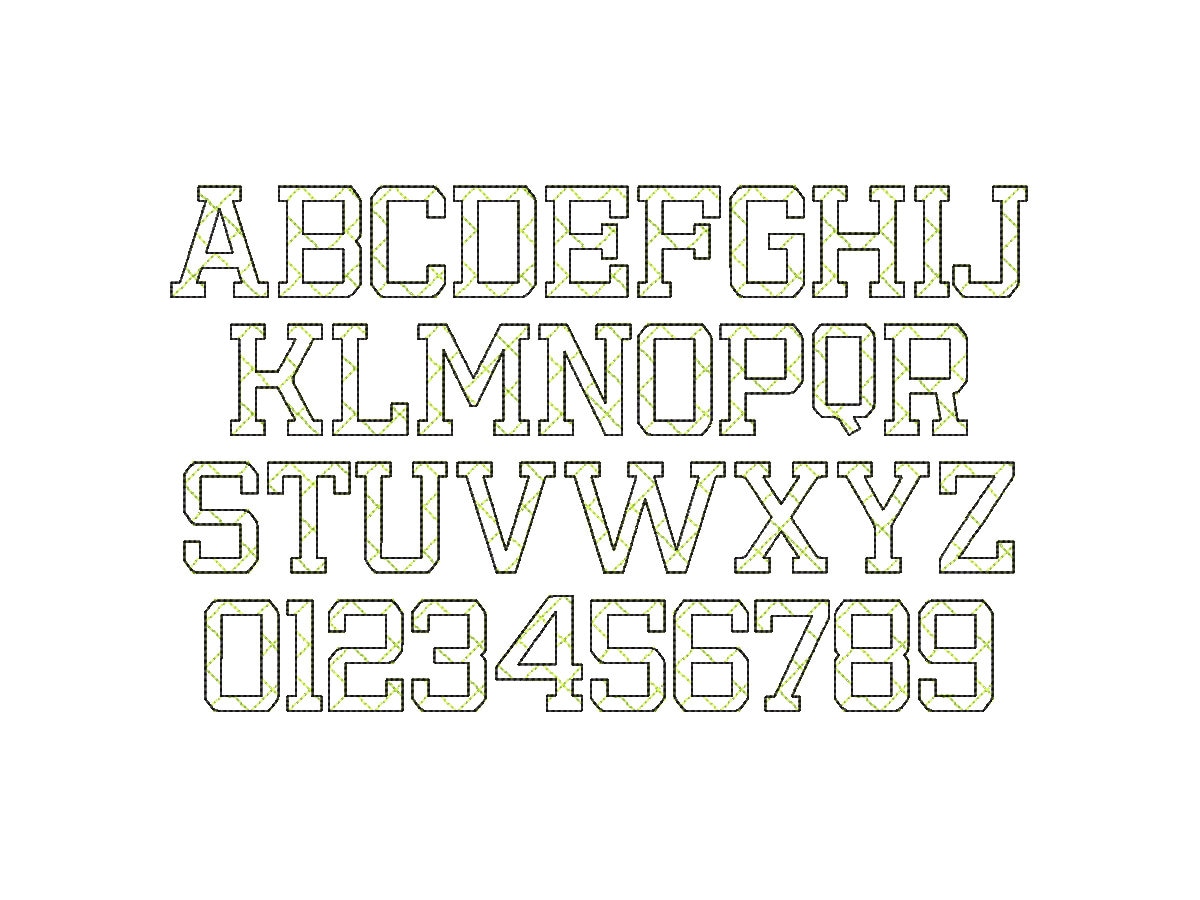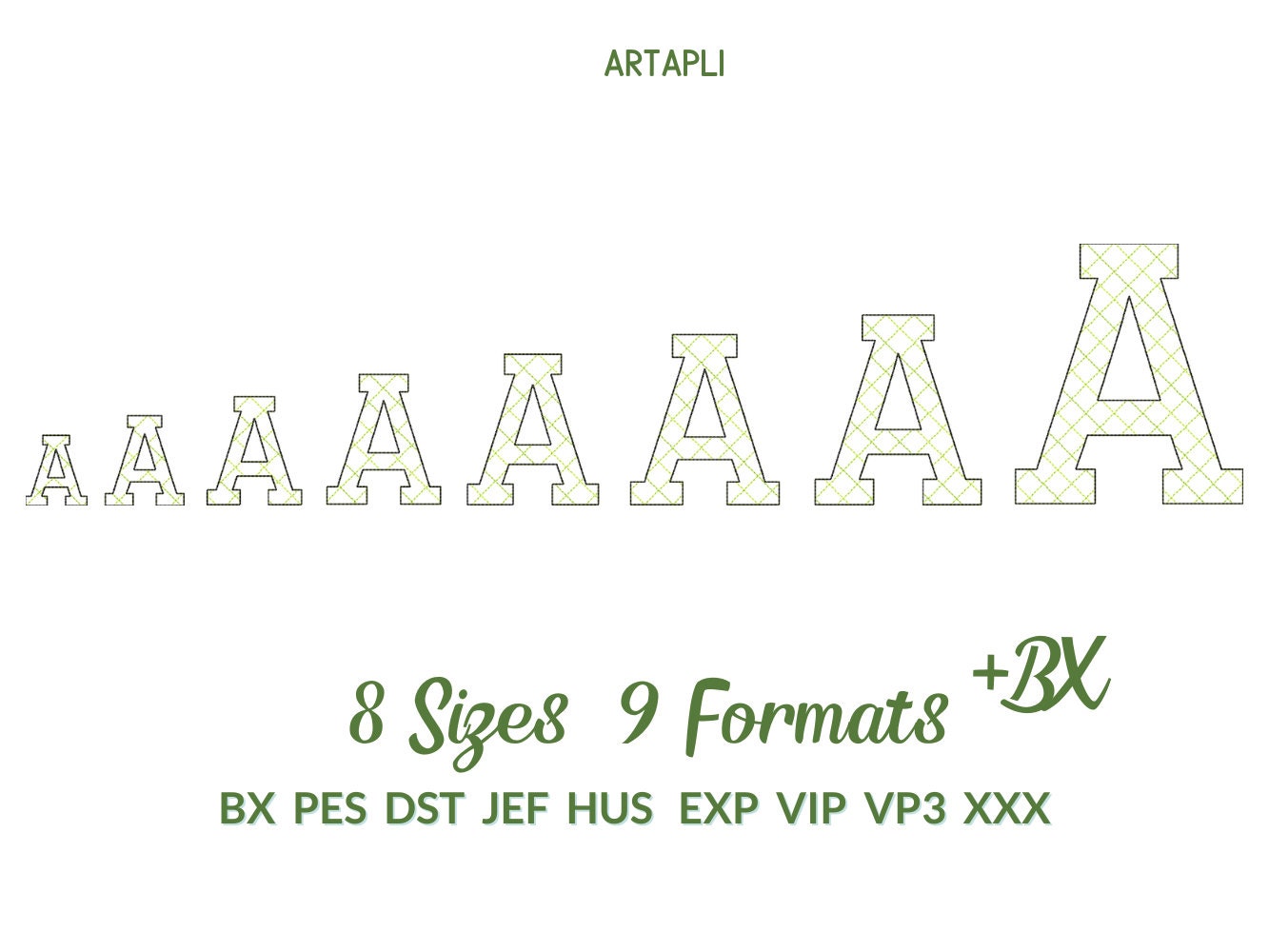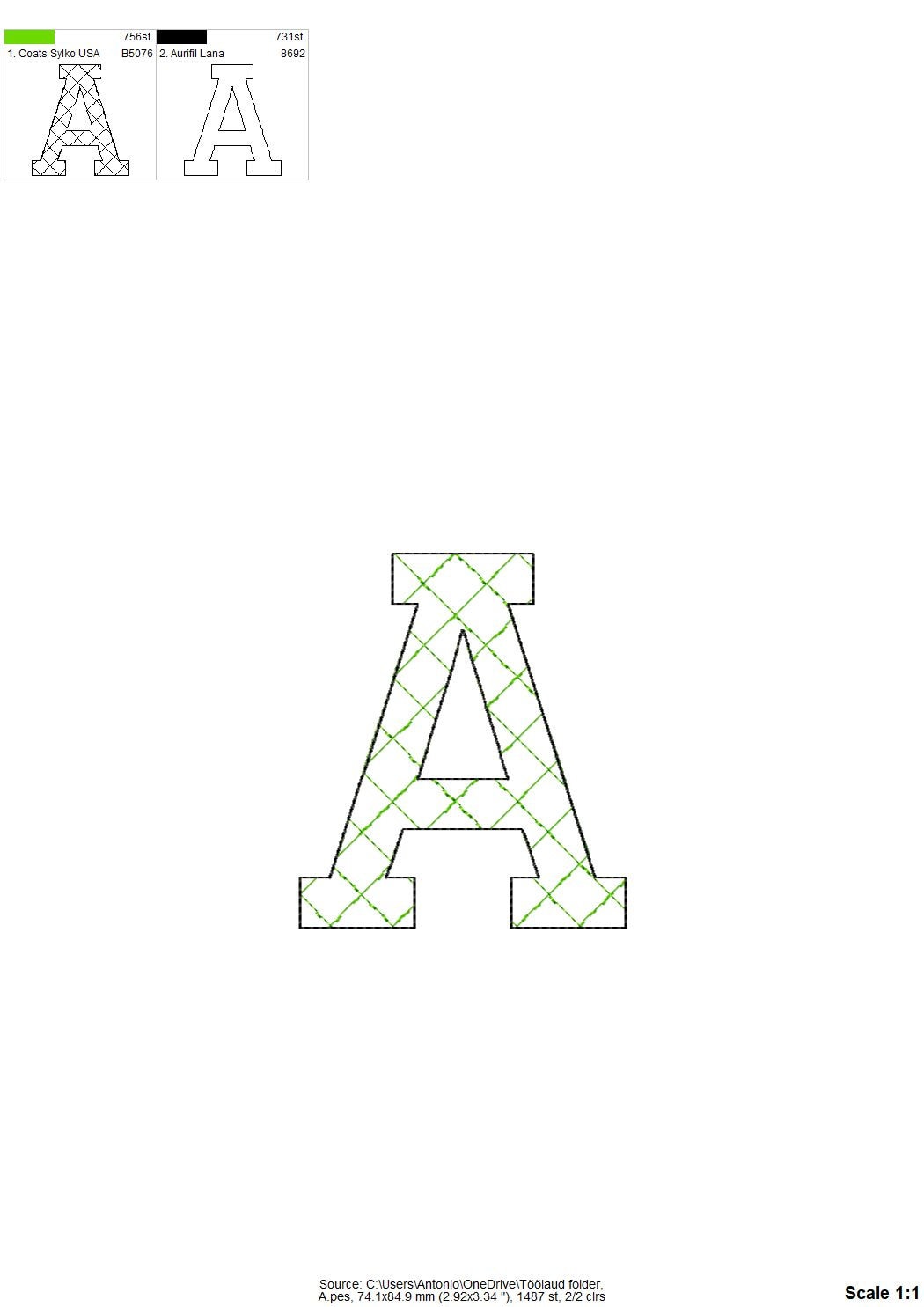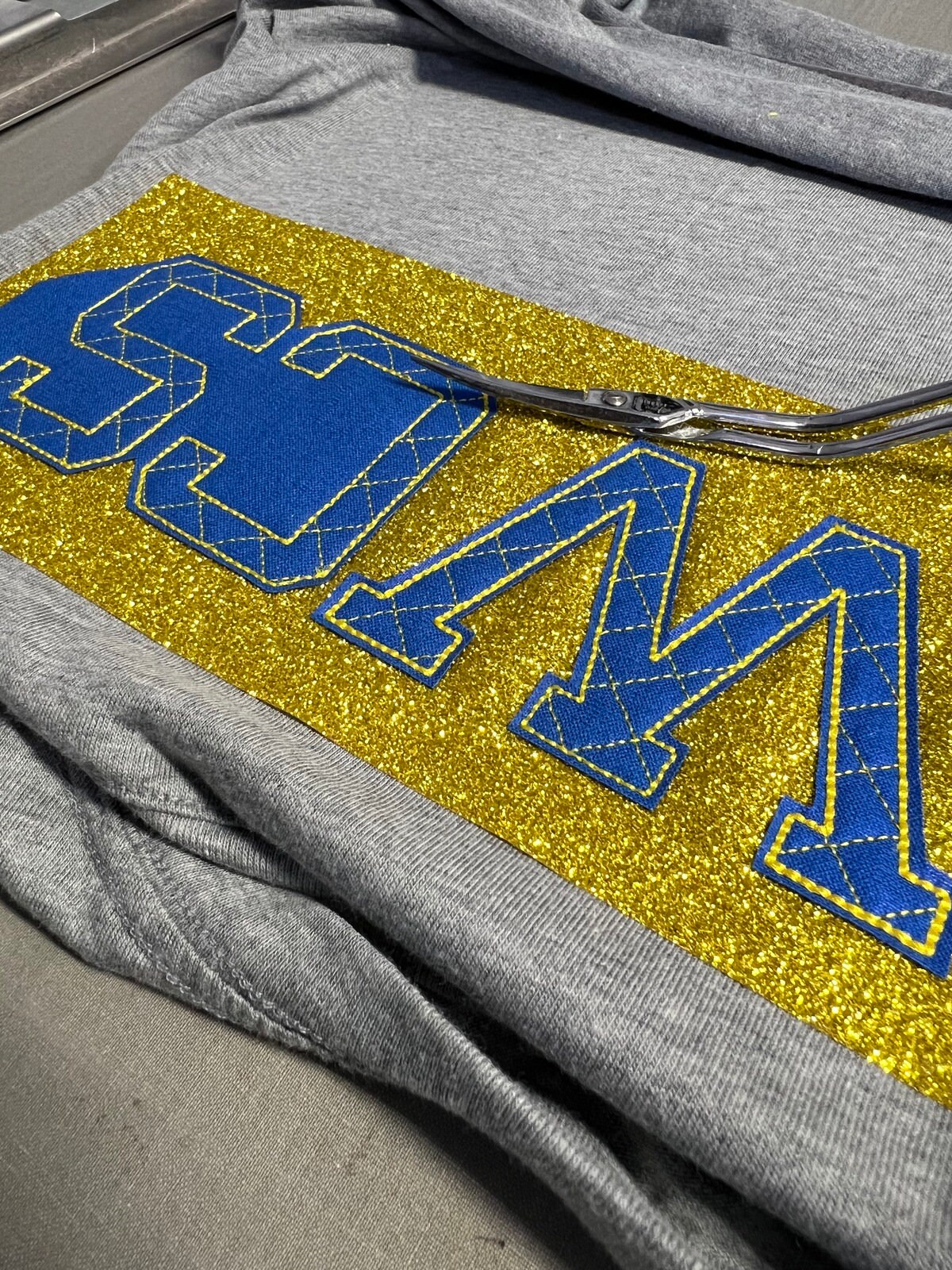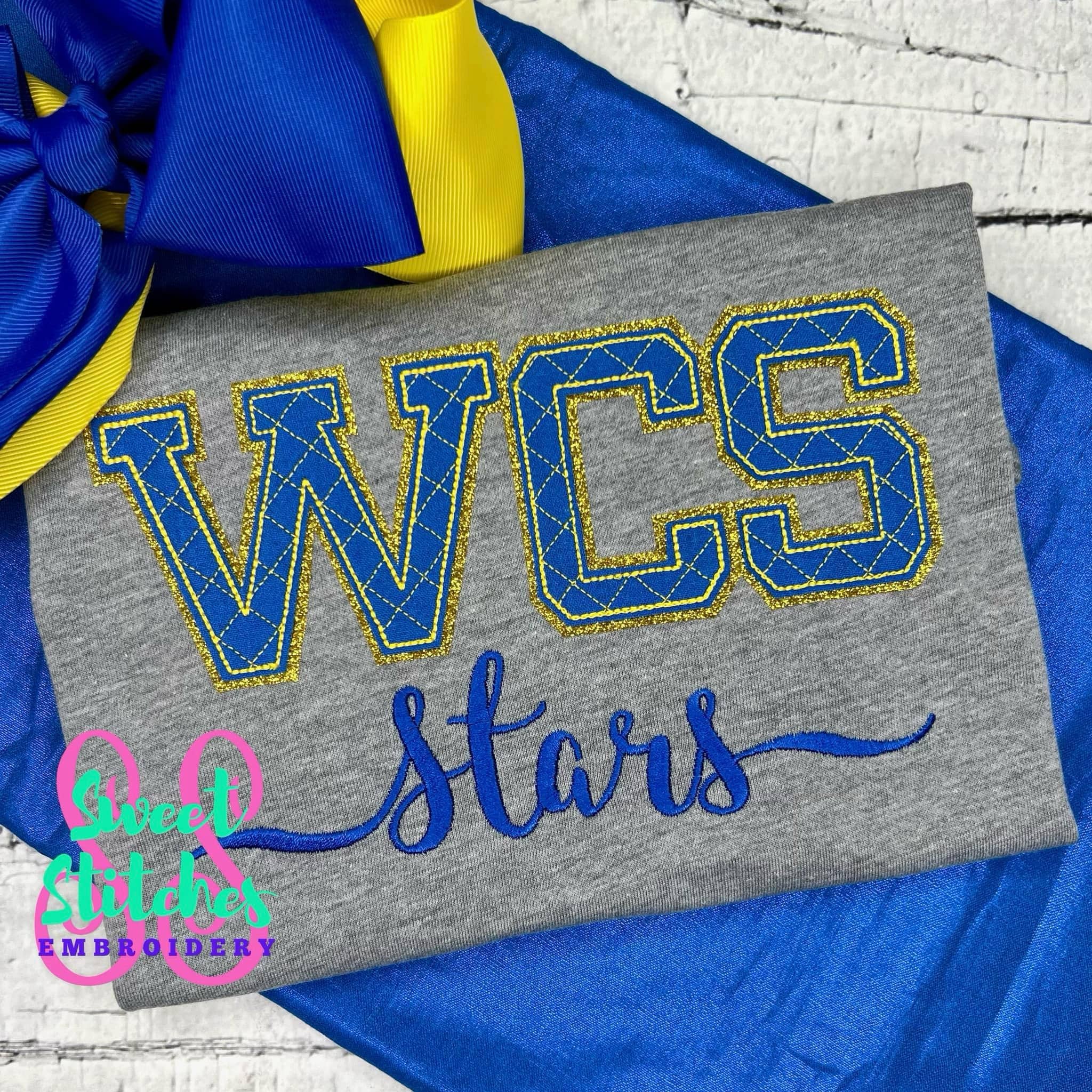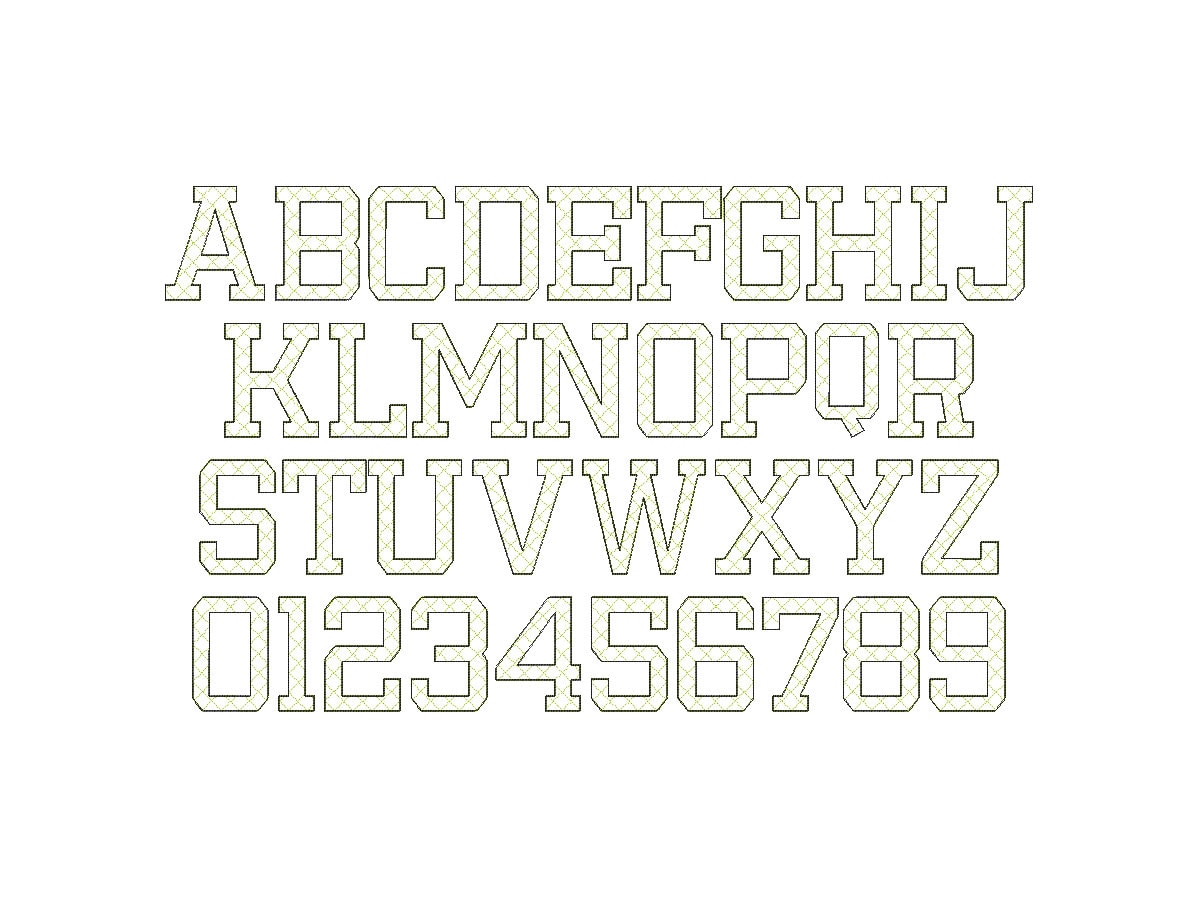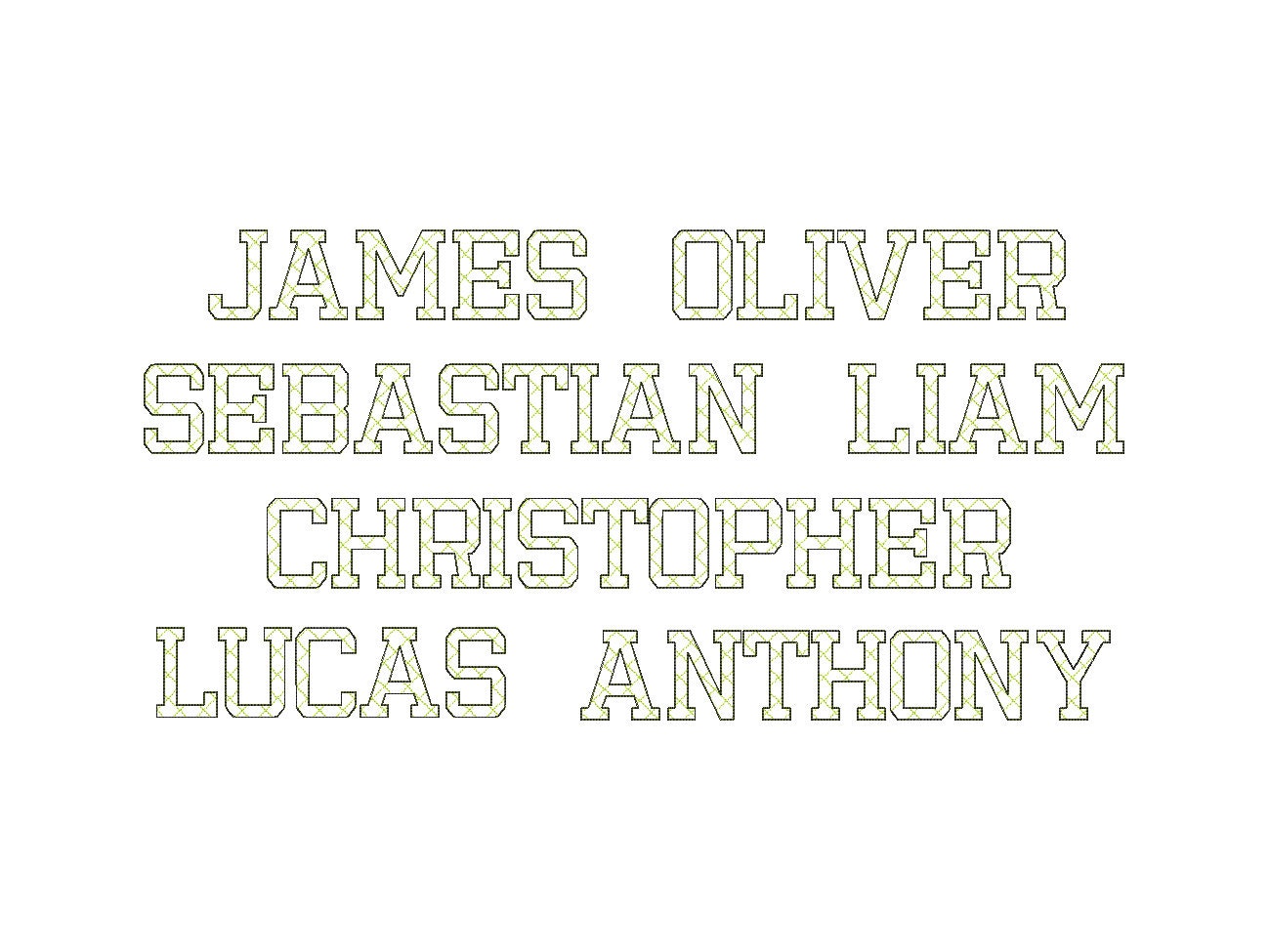
Quick light stitch Quilted FONT machine embroidery designs assorted sizes Quilt Alphabet letters and numbers boy name monogram, BX included
Whole alphabet uppercase A-Z and numbers 0-9.
This is a light stitch font. The lines are part of the design. The background fabric looks through. Stunning effect!